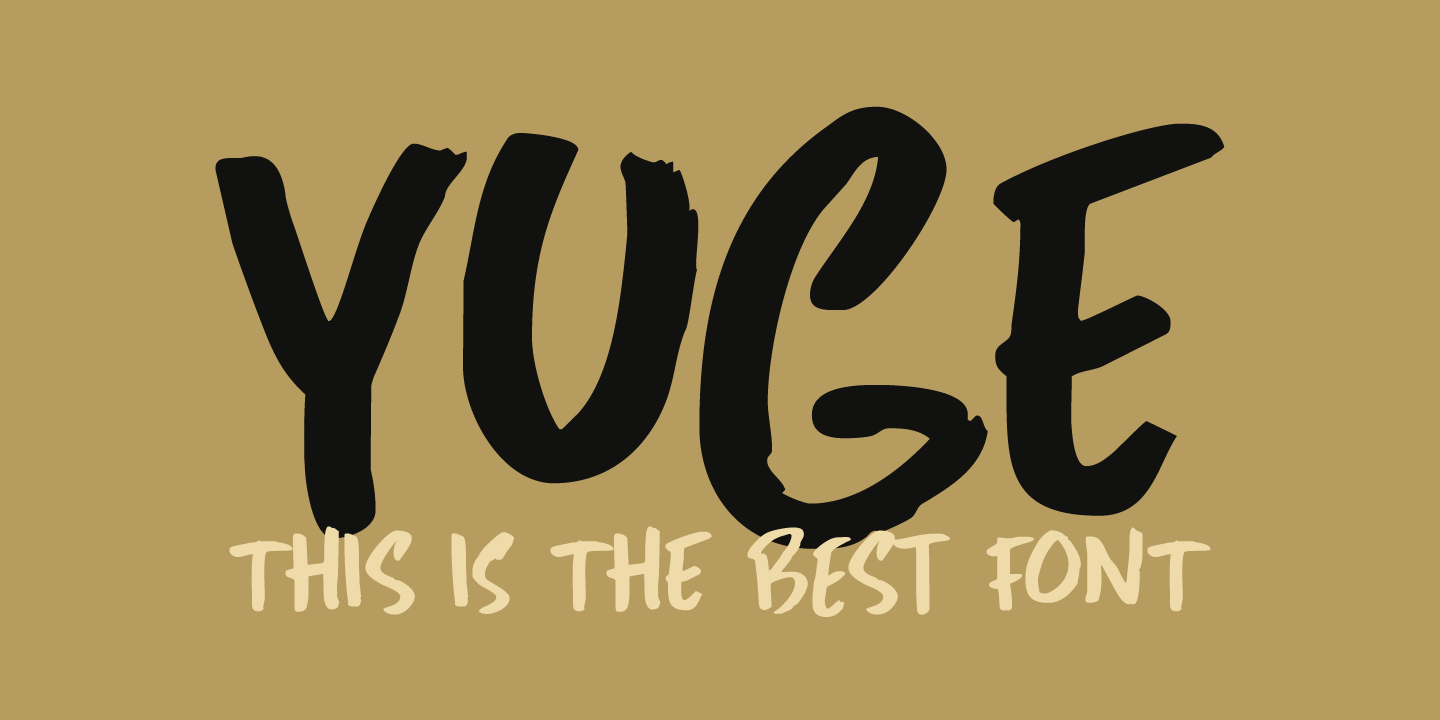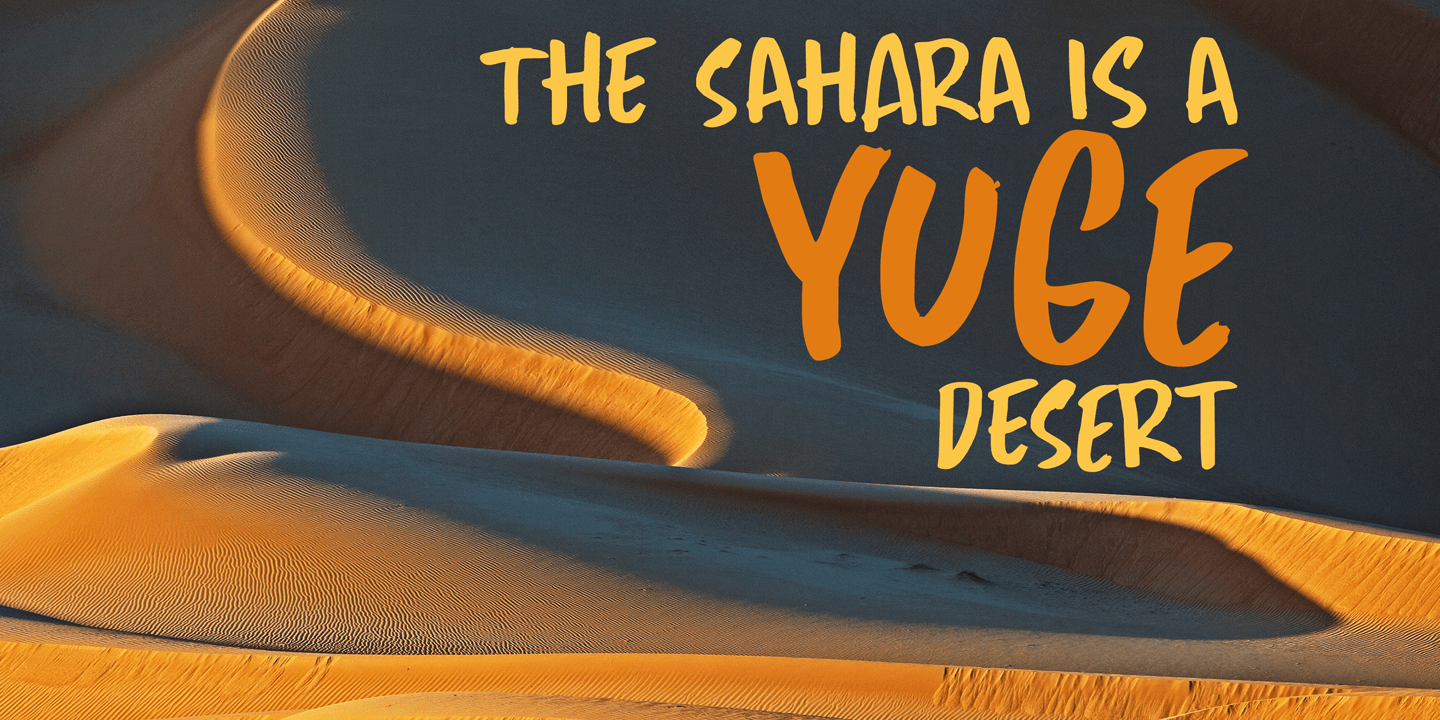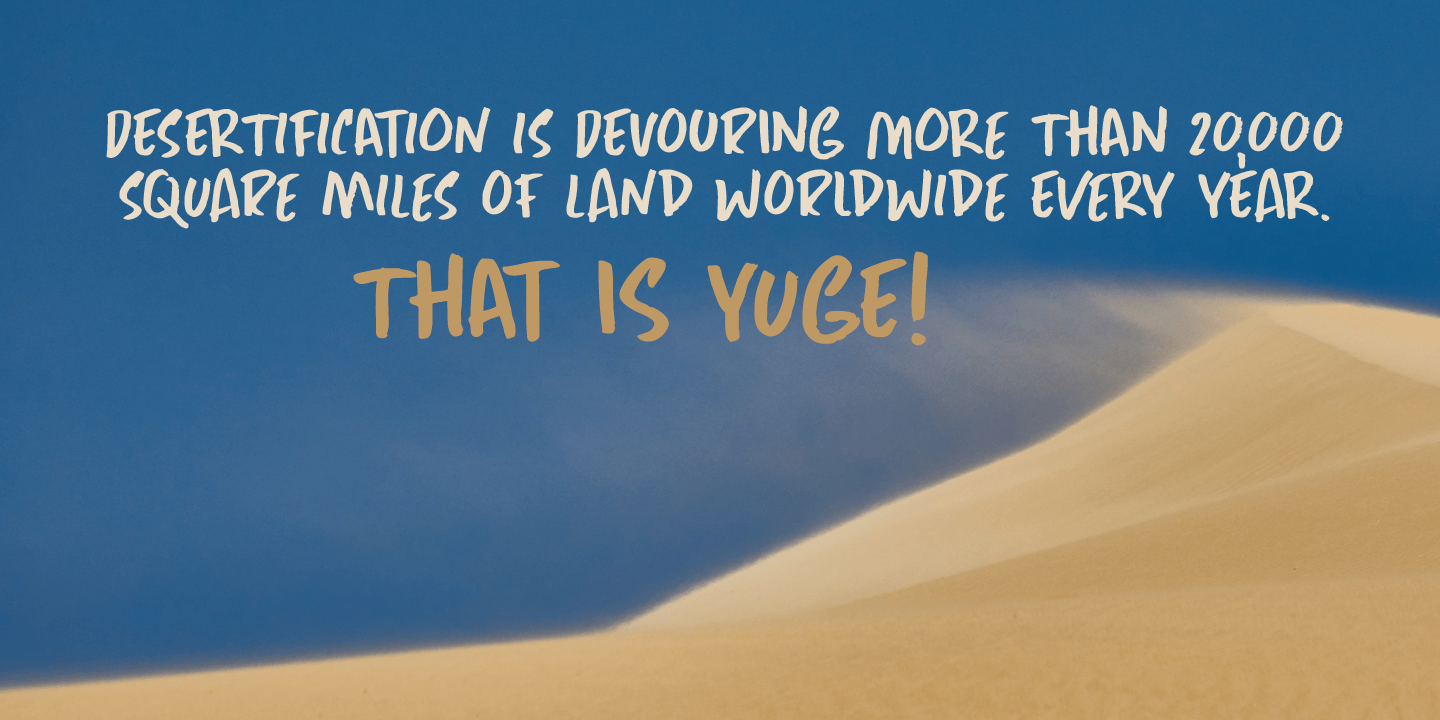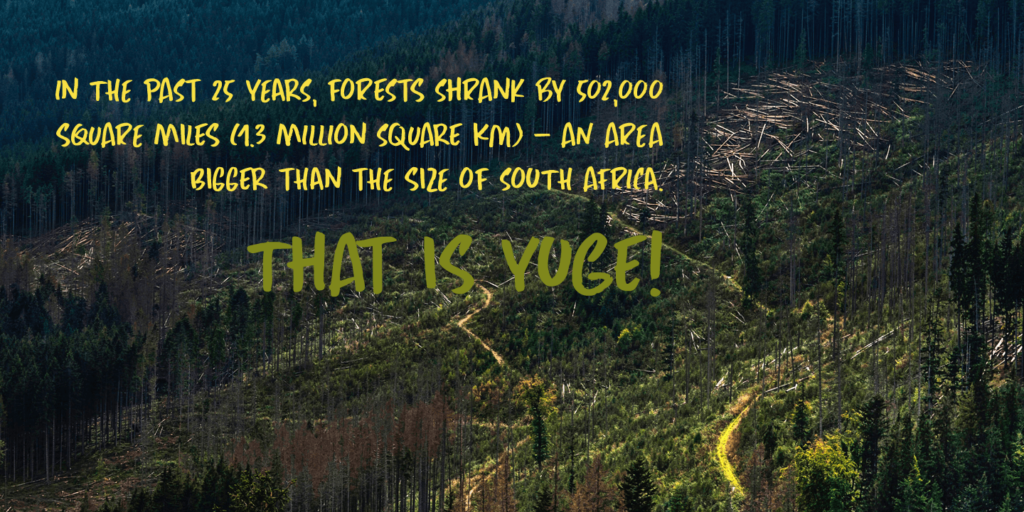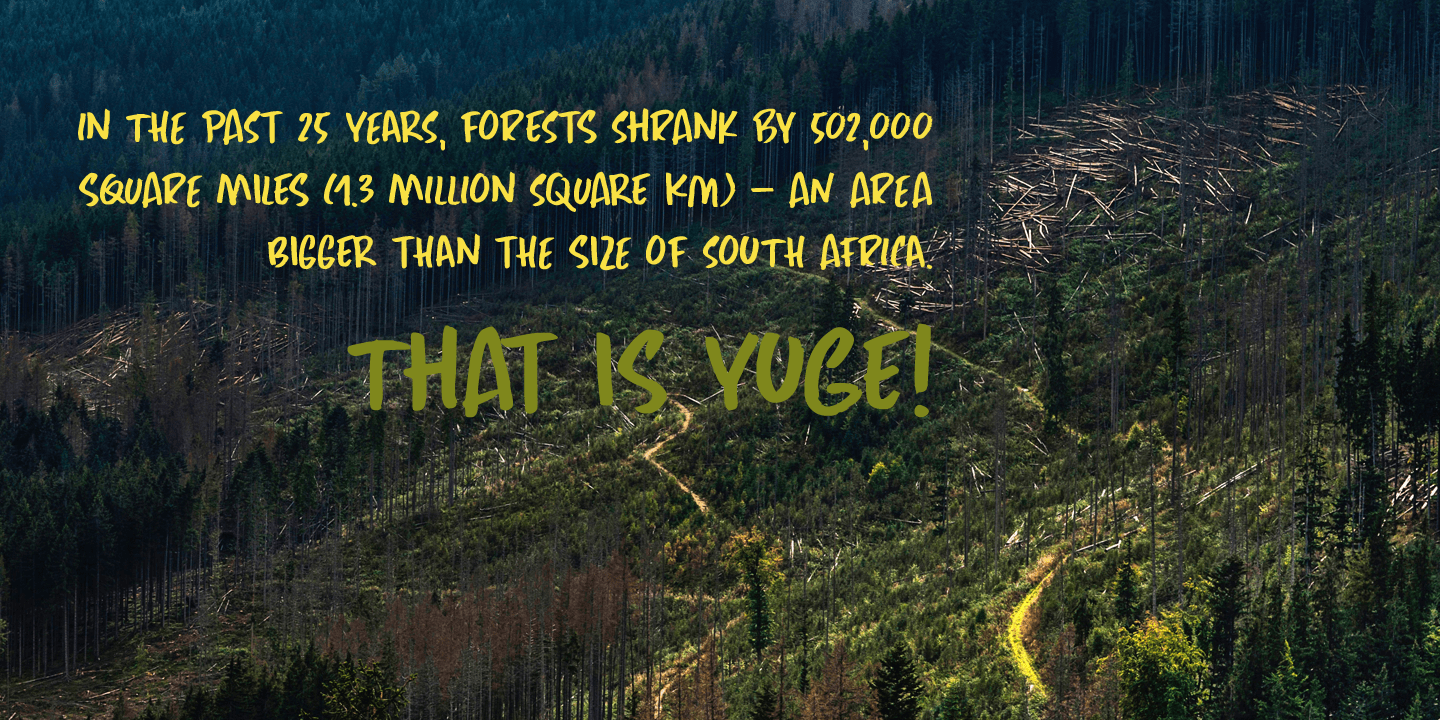
About Yuge
Yuge, apparently, is how New Yorkers pronounce huge. I have never been to New York, so I can\’t tell if this is a fact. But I often hear a certain New Yorker pronounce it that way, so I guess it\’s sort of true. Yuge is a handwritten font – made with a…